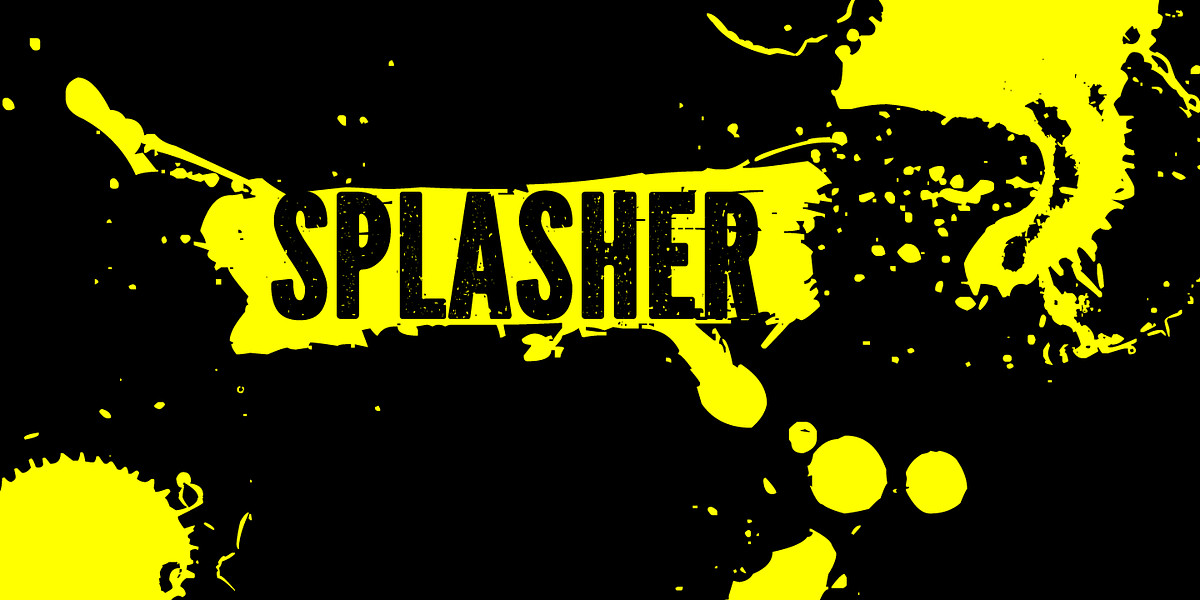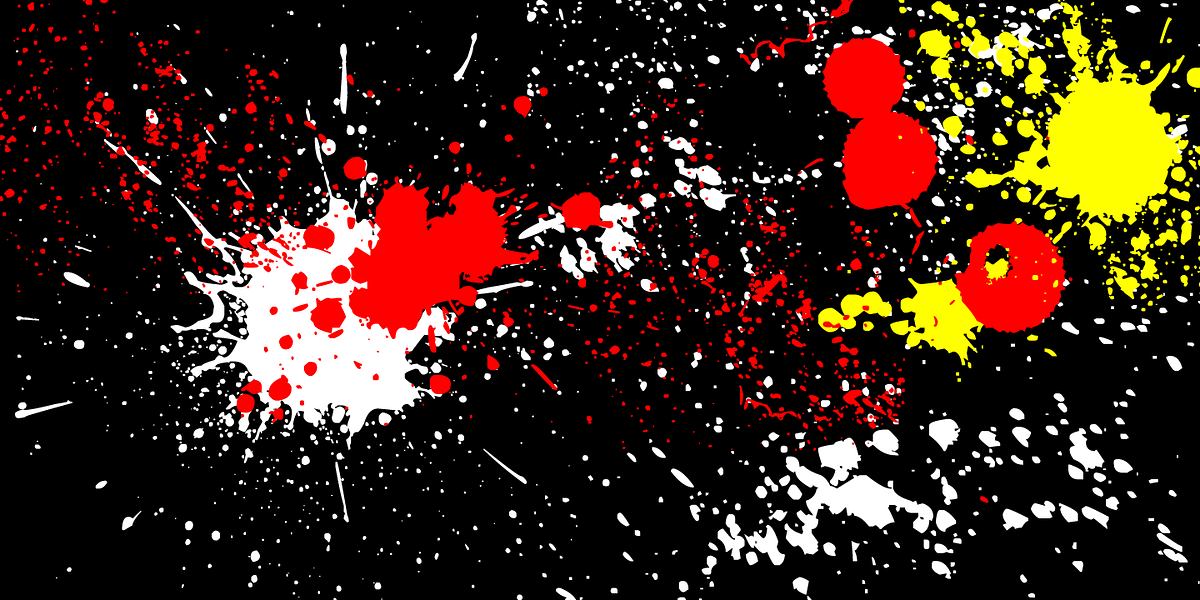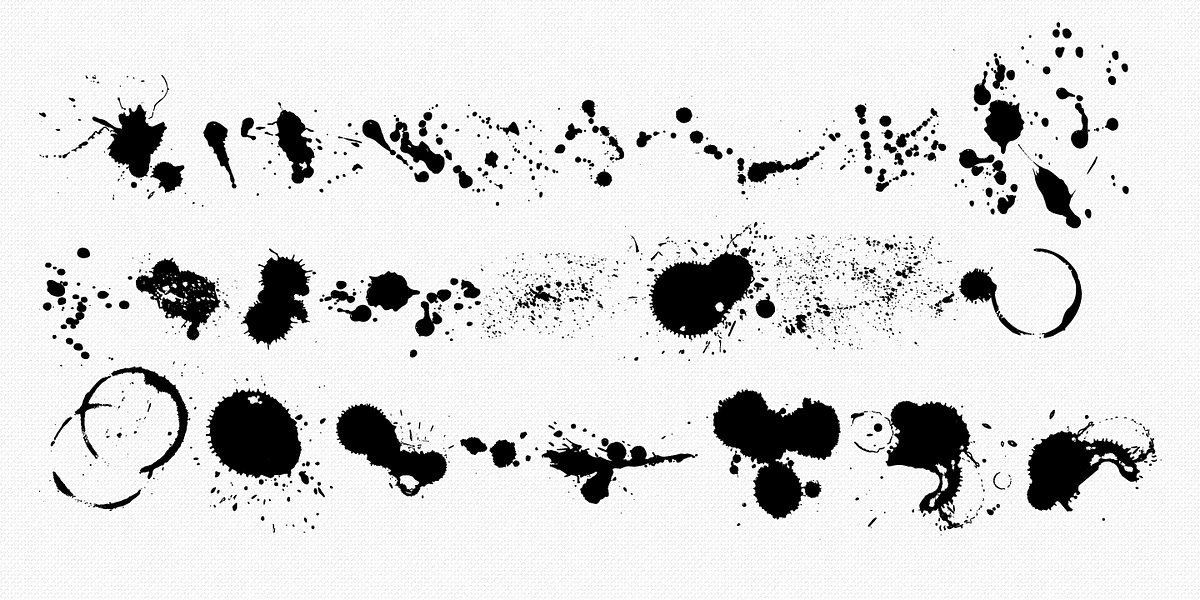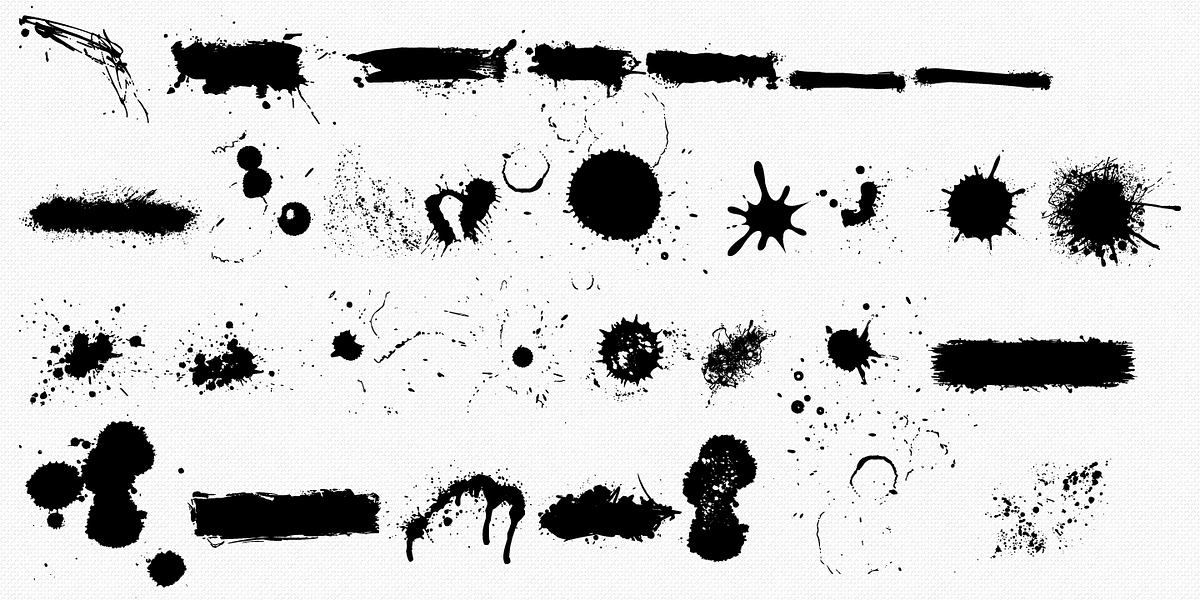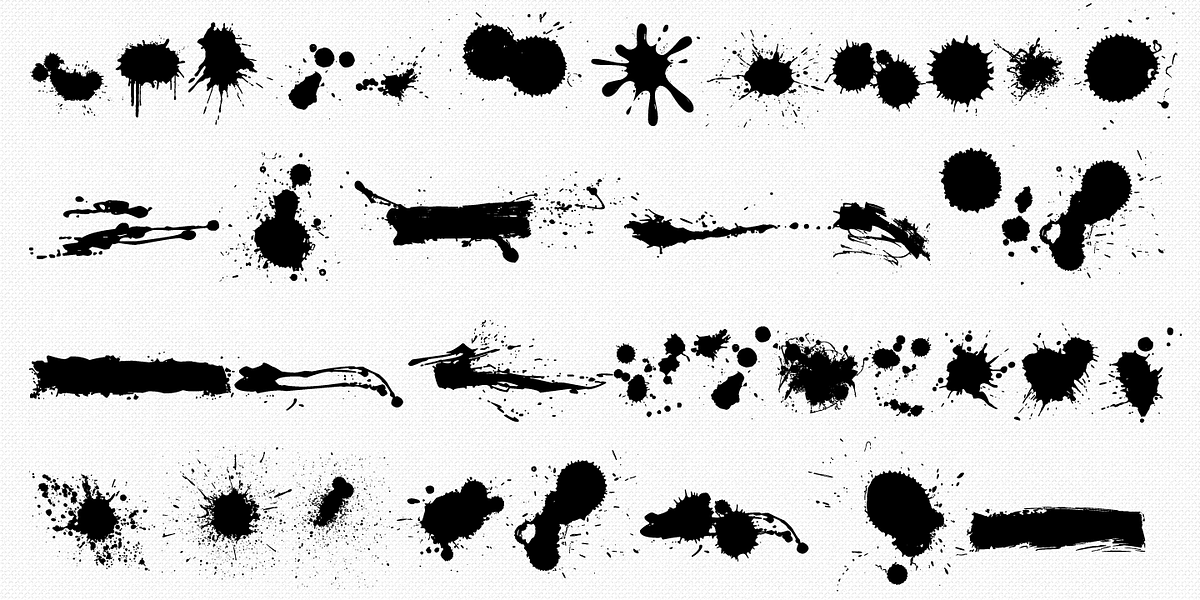
Splasher
Splasher is a collection of 94 unique dingbats designed to resemble ink, paint, and coffee splatters. These splatters can be incorporated into various design projects as decorative elements.